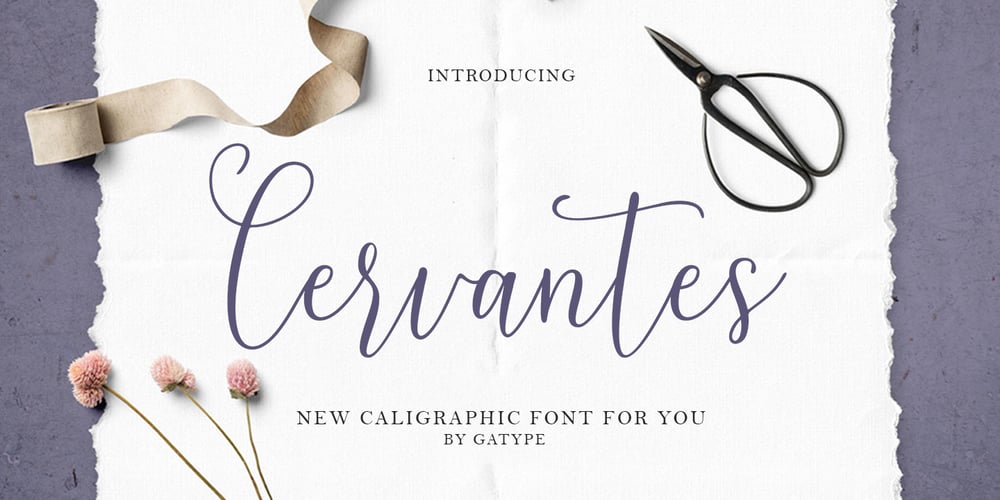
Cervantes Font Family was designed by khaidir and published by Gatype. Cervantes contains 1 styles and family package options. Cervantes is a beautiful modern calligraphy typeface, I hope you will be interested in this font, if you want to use it for your work. This font can be used easily and simply because there are many features in it. contains a full set of lowercase and uppercase letters, a wide variety of punctuation marks, numbers, and multilingual support. Cervantes would be perfect for invitations, logo & branding, photography, advertising, watermarks, social media posts, product packaging, product designs, labels, wedding designs, stationery, special events, or anything that needs a handwritten feel. Cervantes comes with 353 glyphs. Alternate characters are divided into several Open Type features such as ,Alternative Style. The Open Type feature can be accessed using intelligent Open Type programs such as Adobe Illustrator, Adobe InDesign, Adobe Photoshop version of Corel Draw X, and Microsoft Word. And this Font has provided PUA unicode (custom coded font). so that all alternative characters can be easily accessed in full by a craftsman or designer.Thank you for your purchase.